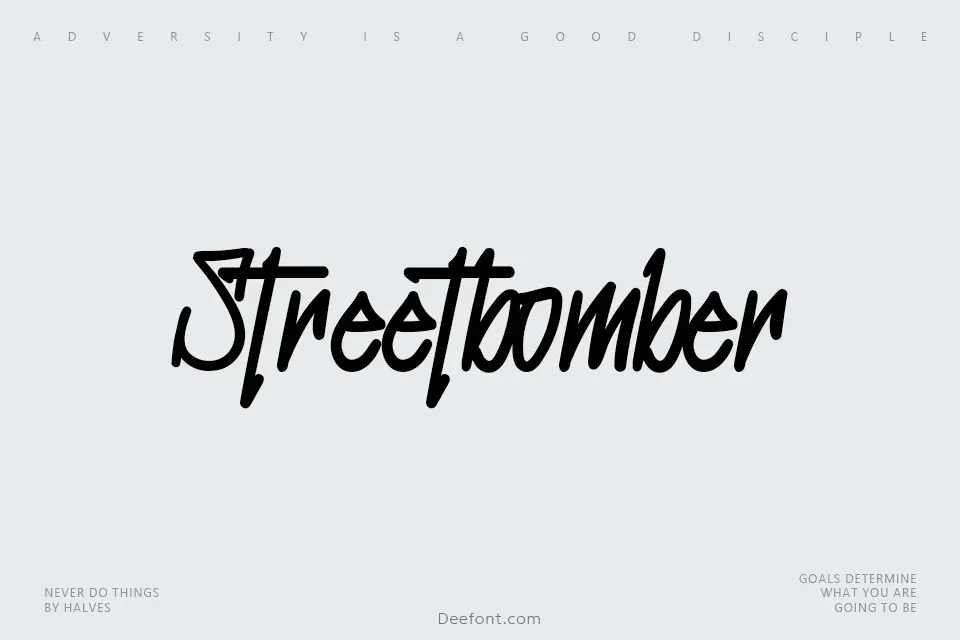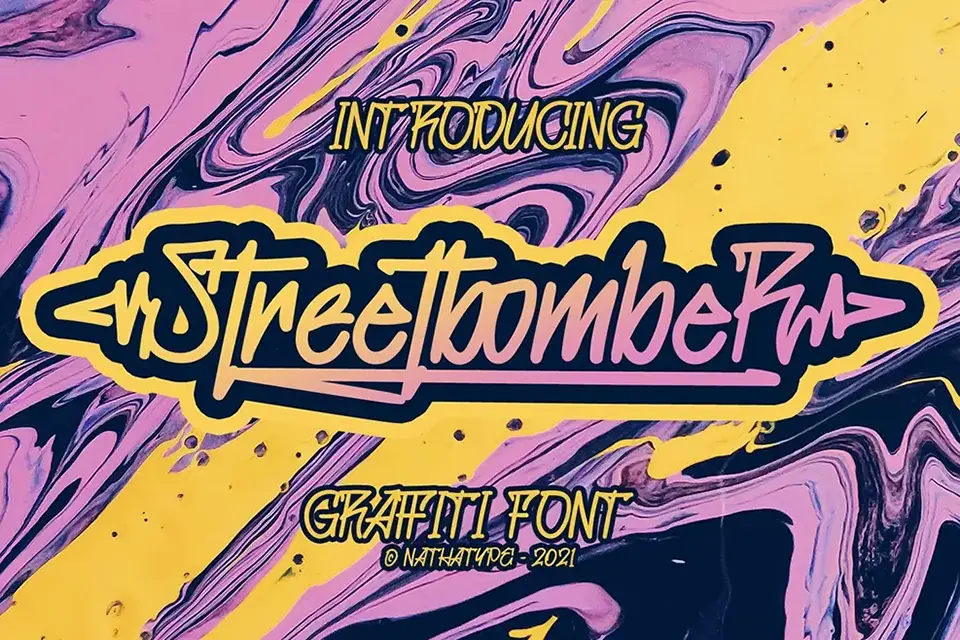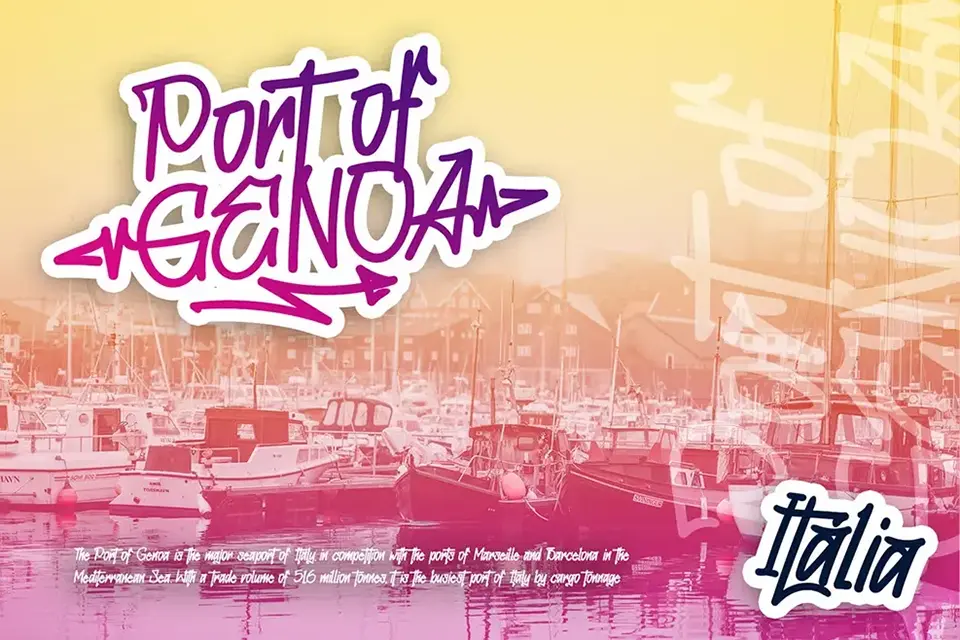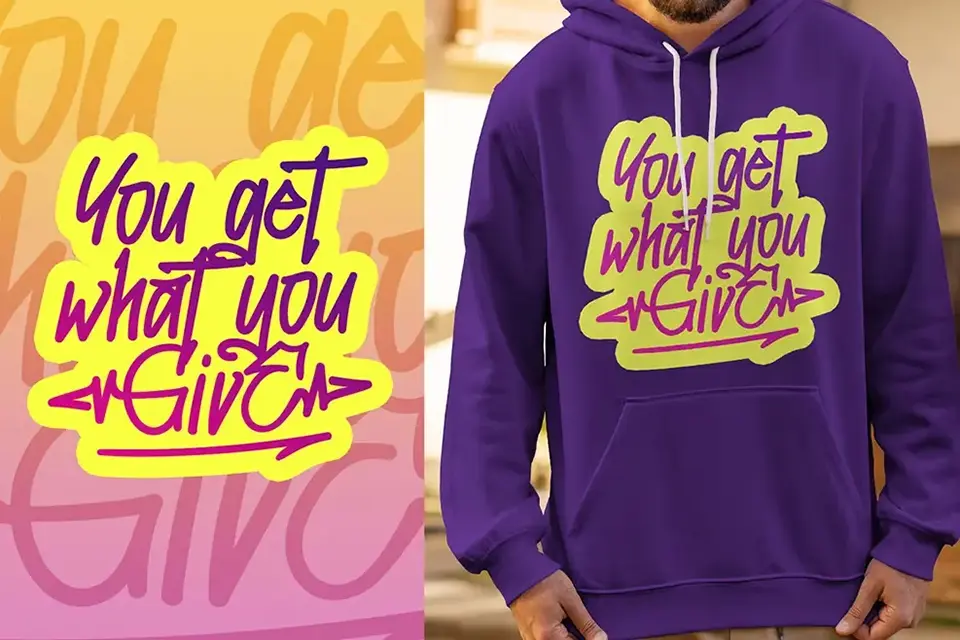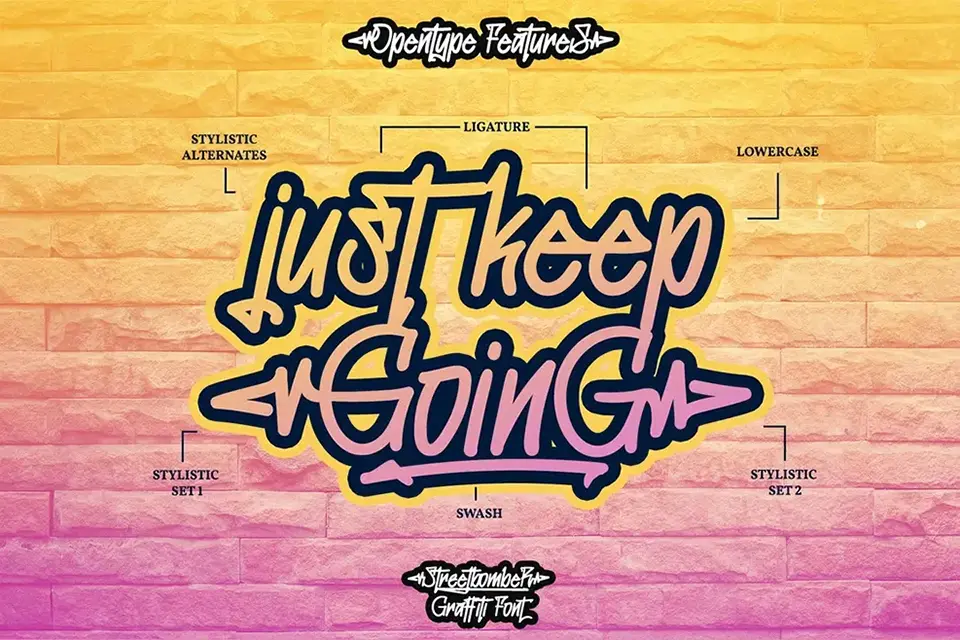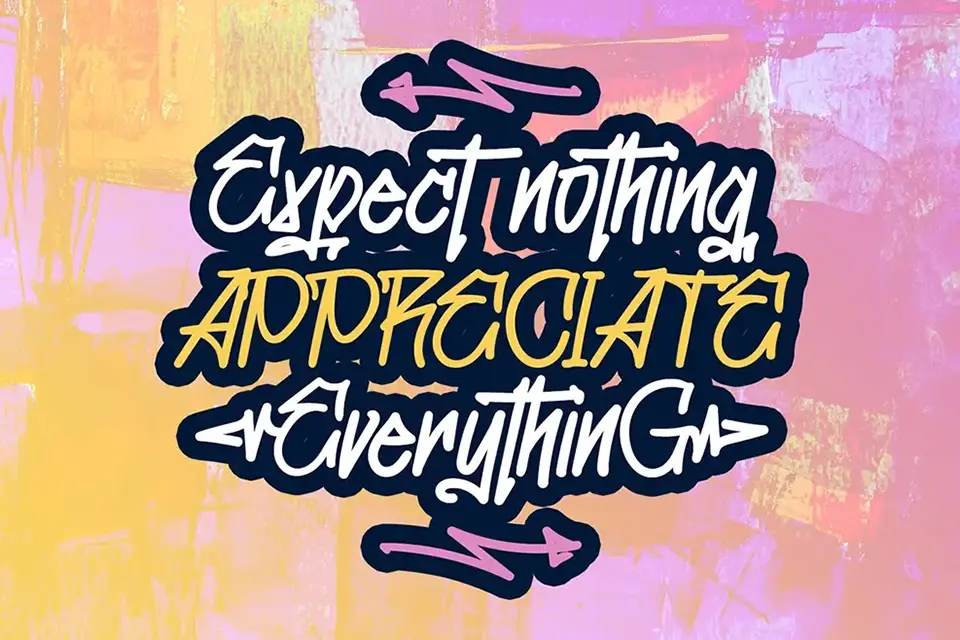
Streetbomber Font
Streetbomber is an urban graffiti font that echoes the classic tag lettering style, perfect for adding street life vibes to your creative projects. This versatile display typeface works exceptionally well for logos, printed quotes, cards, packaging, and social media branding. Features include alternates, ligatures, stylistic sets, and multilingual support, making it ideal for designers seeking bold, artistic typography that captures the authentic essence of street art culture.